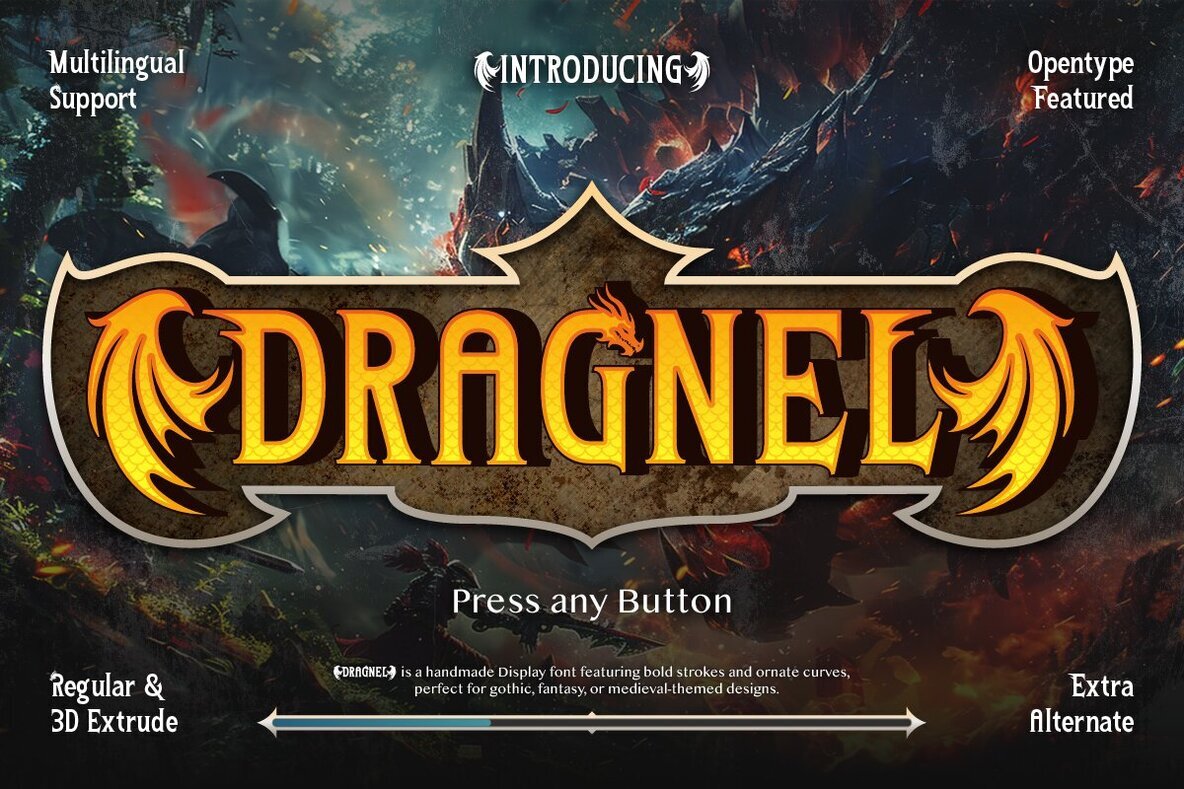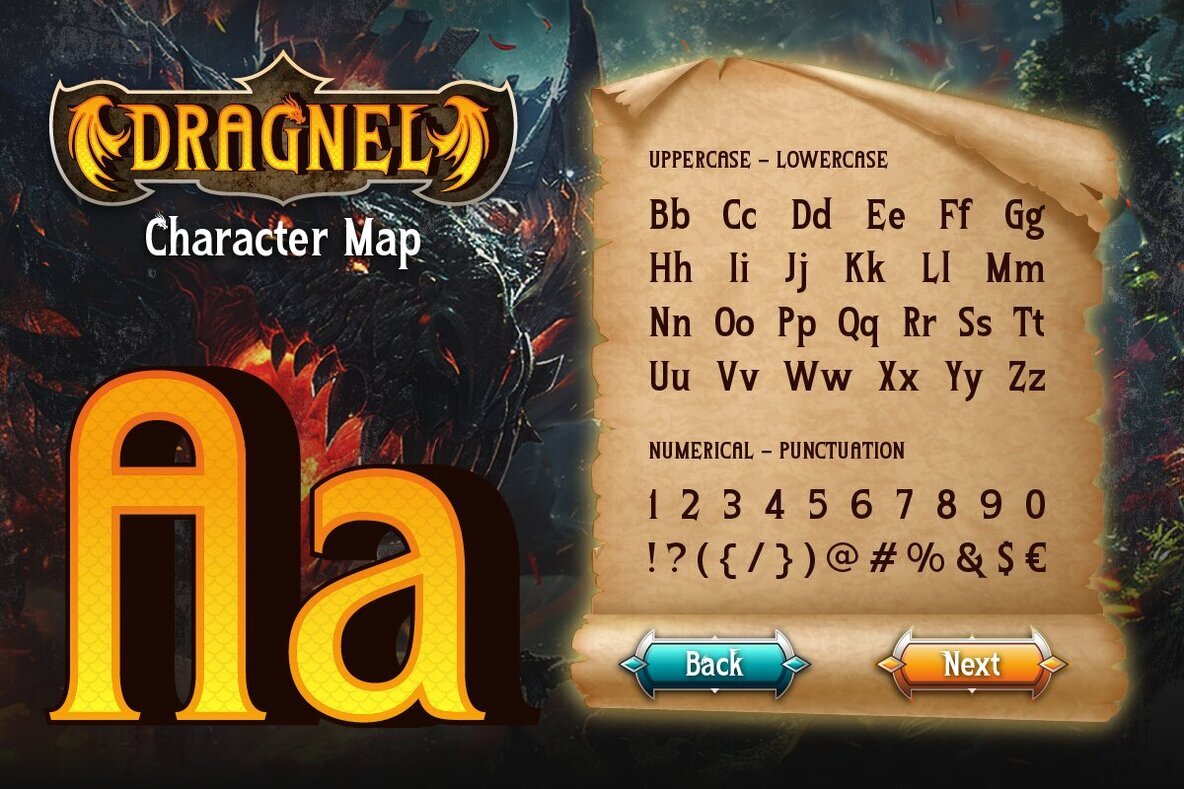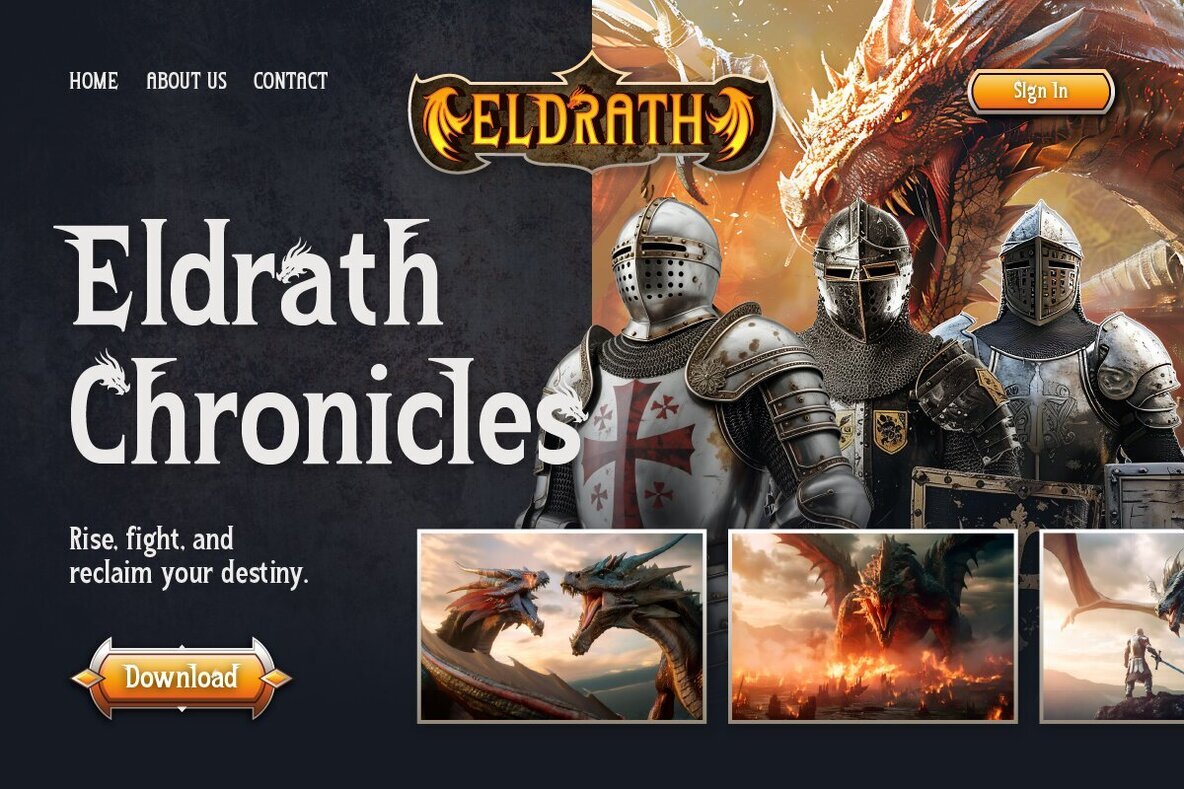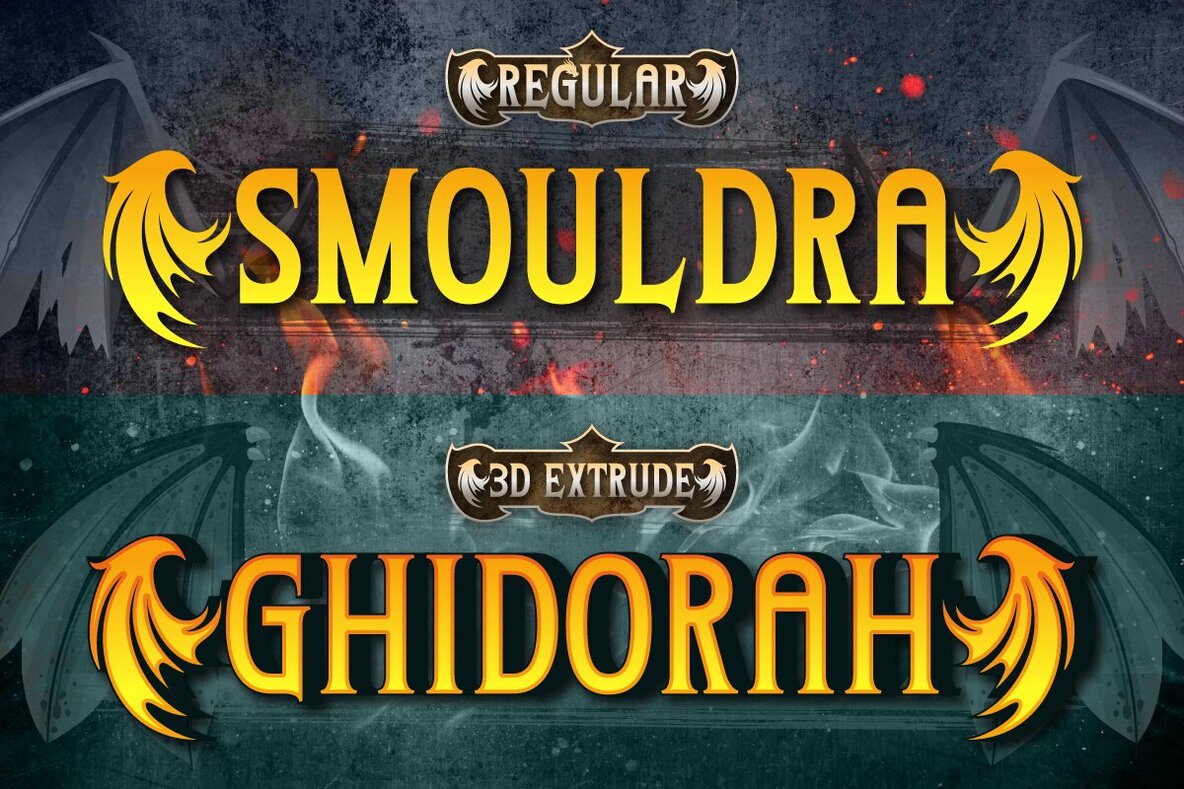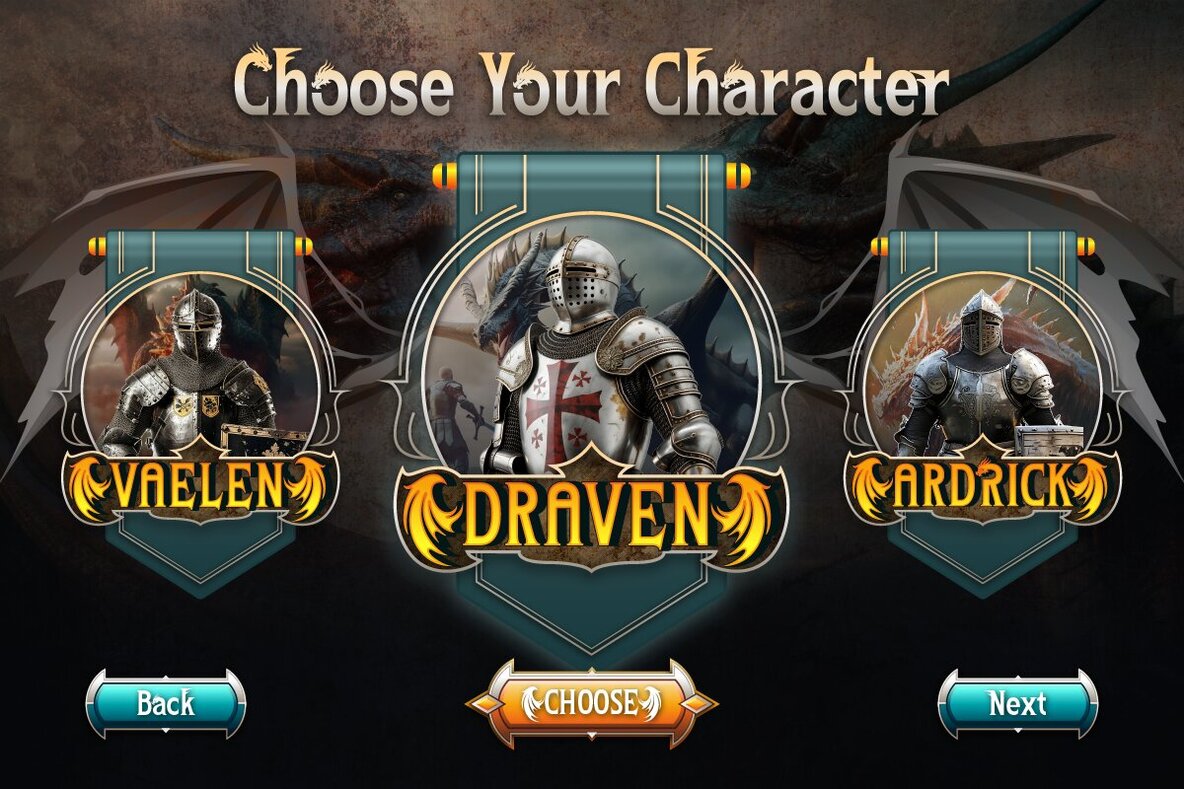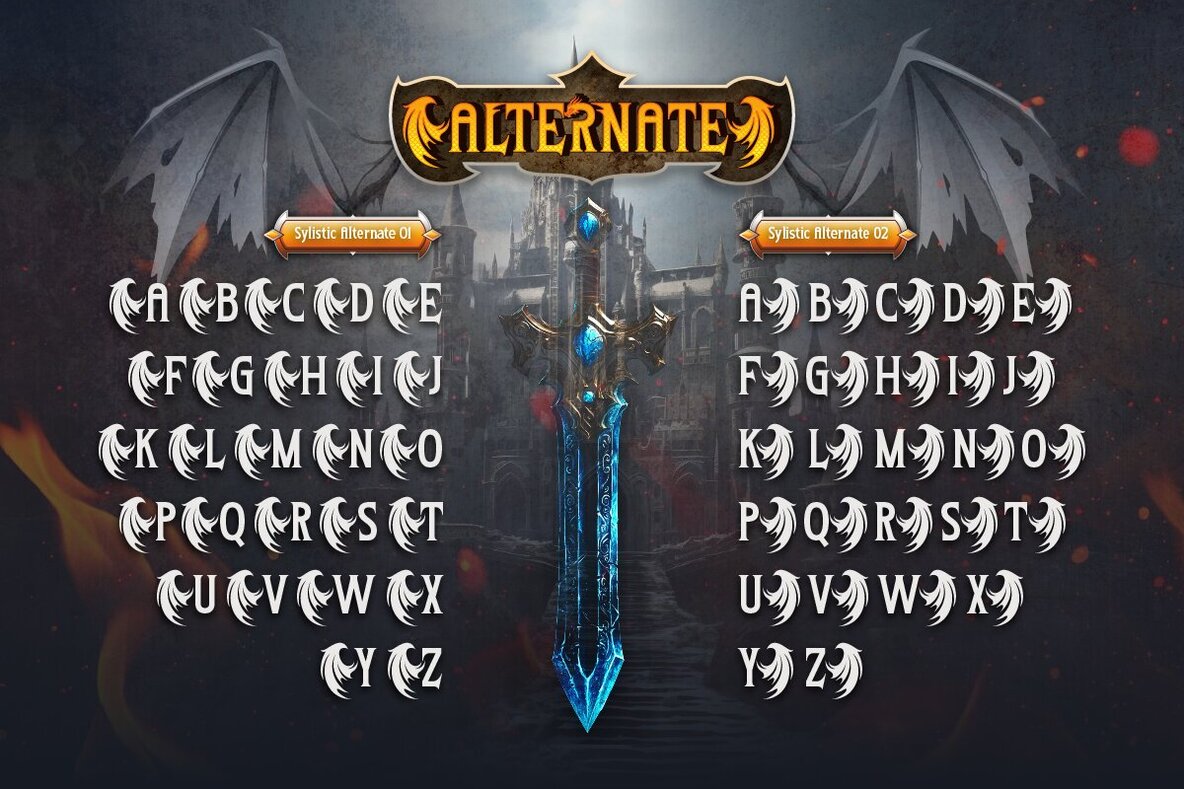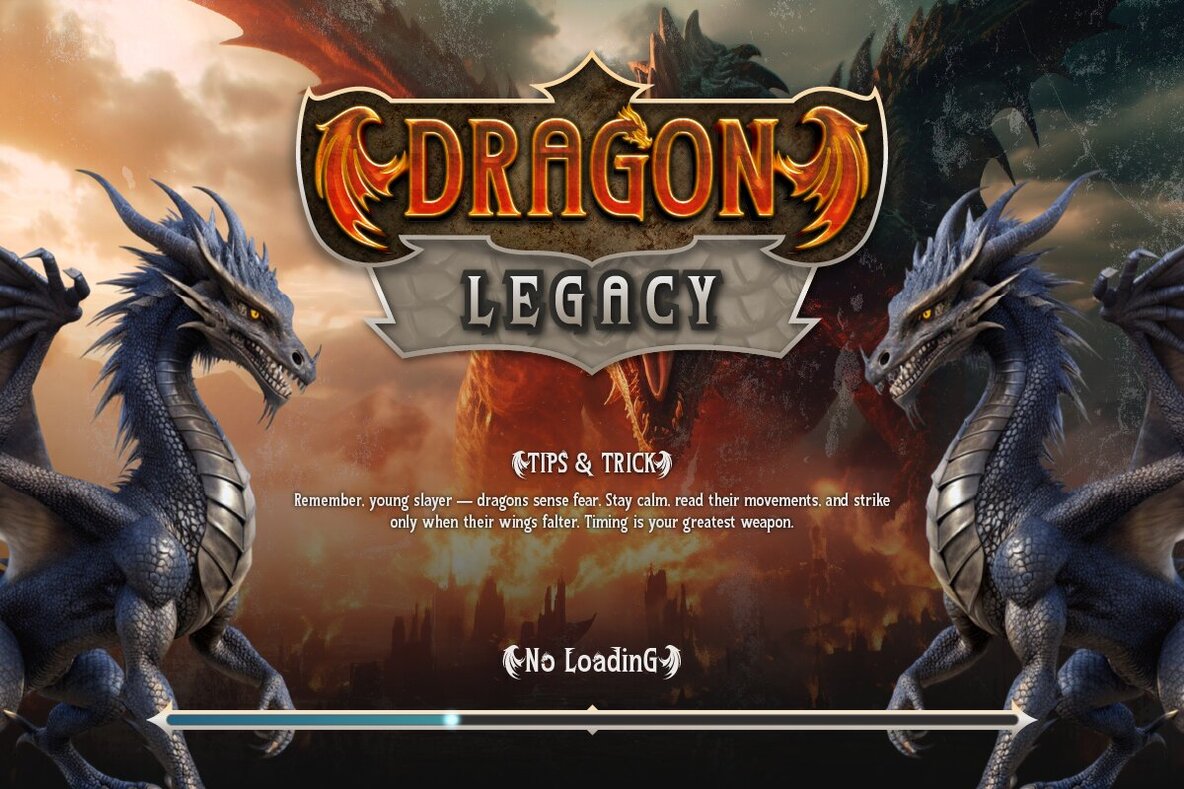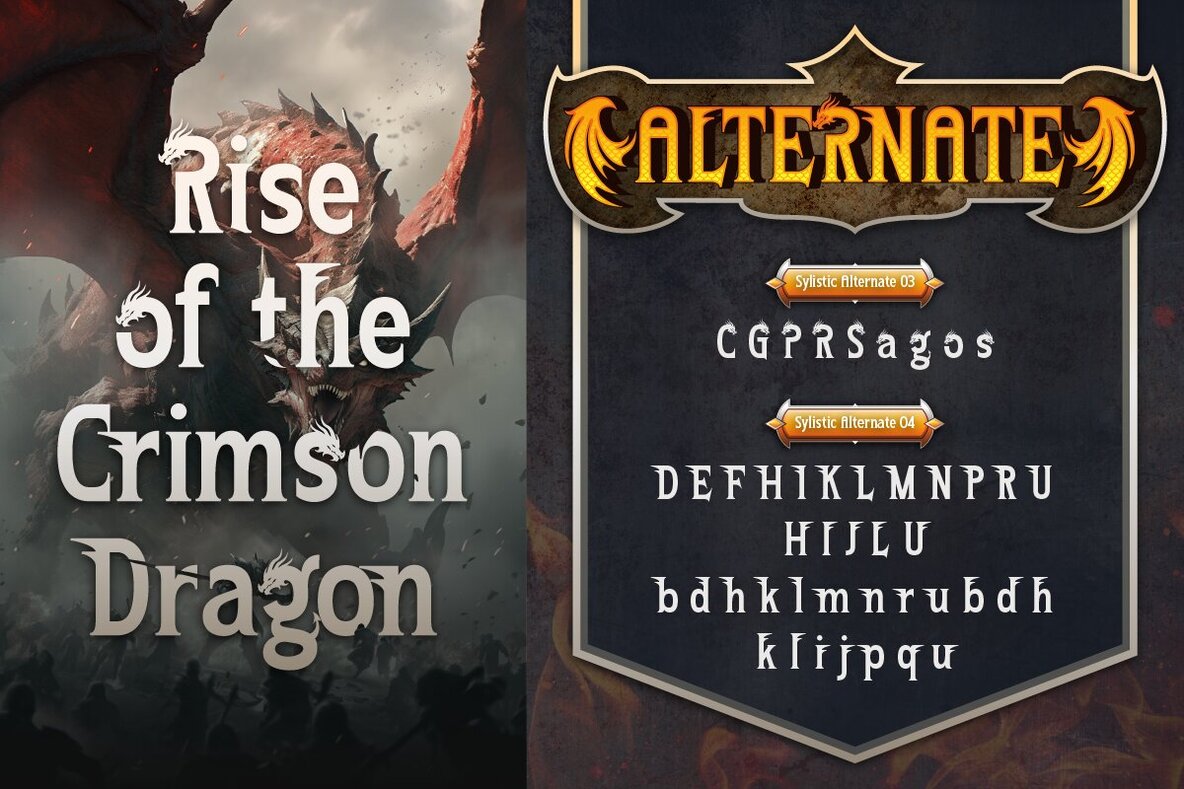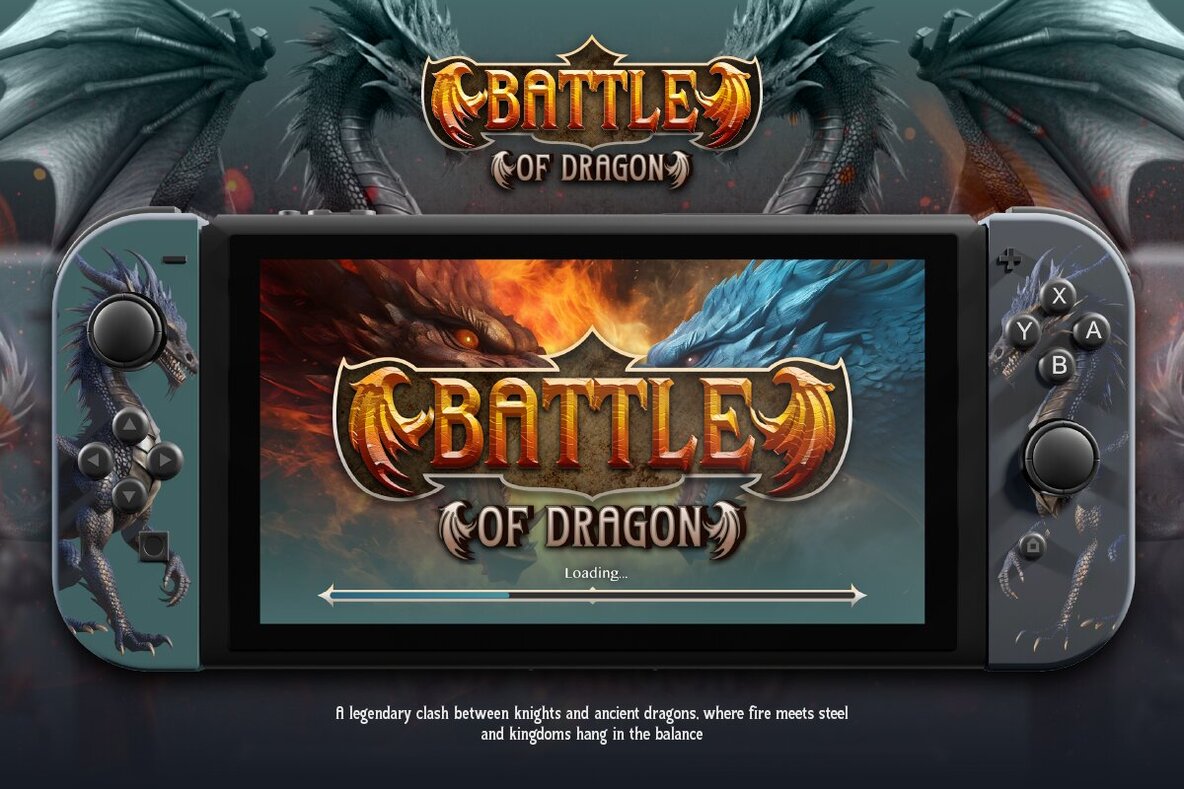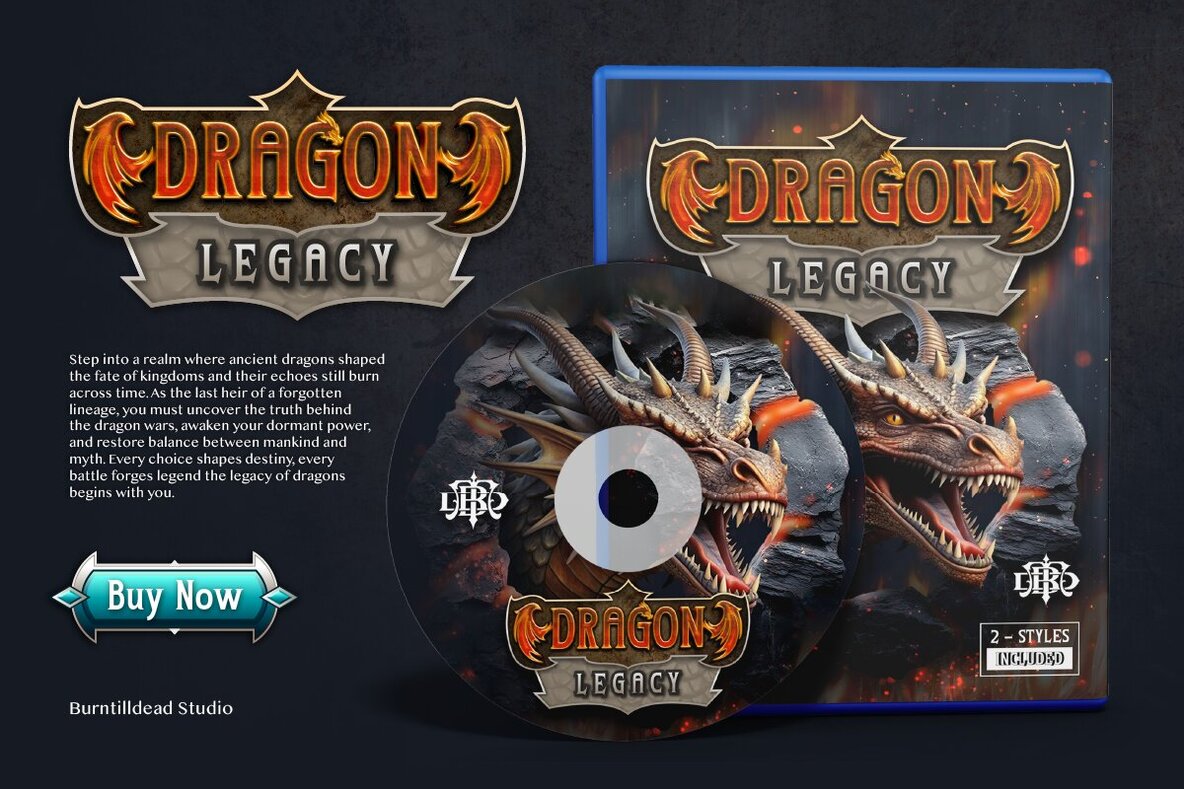
Dragnel Font
Dragnel Regular
Dragnel 3D Extrude
Dragnel captures the spirit of fantasy and adventure, drawing inspiration from dragons, ancient warriors, and medieval lore. This bold display font combines fiery curves with confident strokes, making it an ideal choice for projects that demand a legendary presence. Whether working on fantasy games, epic film titles, or captivating book covers, Dragnel adds a striking impact to any visual story.Dragnel Display Font
From the mystique of forgotten kingdoms to the excitement of modern quests, Dragnel infuses your designs with unmistakable character. Its versatility shines through regular and 3D extrude styles, while additional alternates and ligatures expand creative possibilities. Every detail in this typeface has been shaped for stories fueled by imagination and strength.Font Features